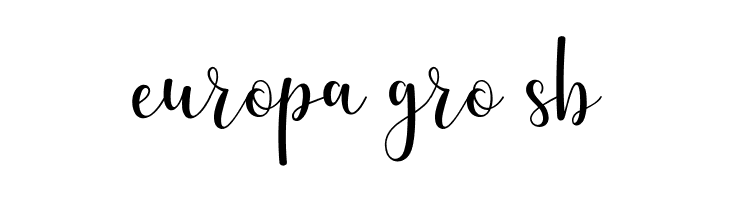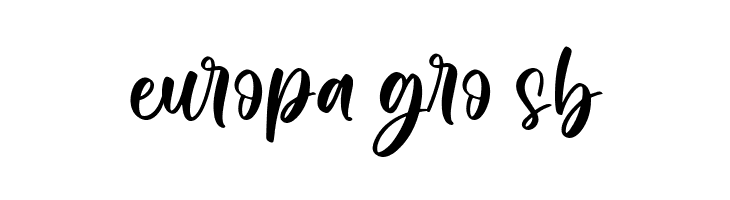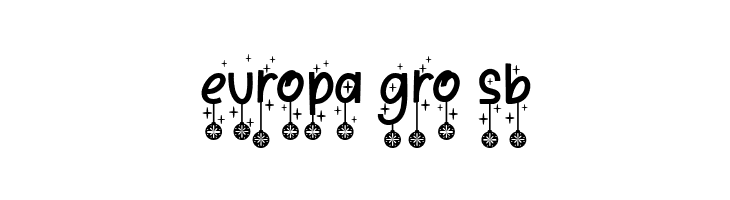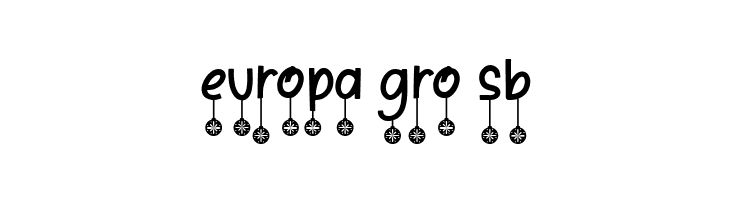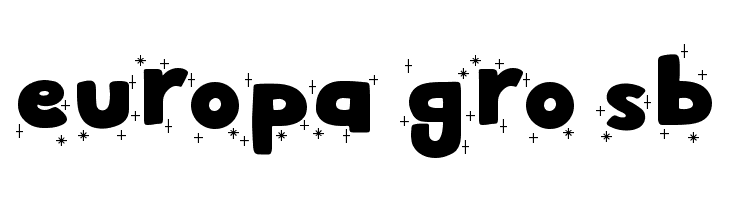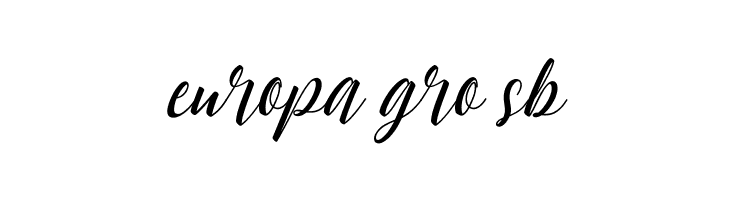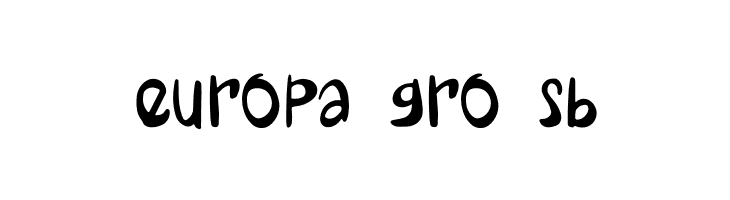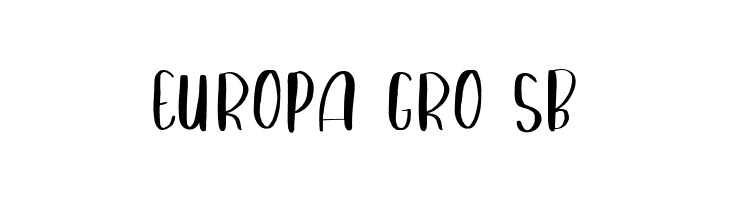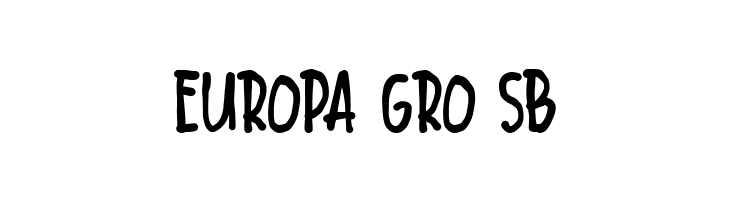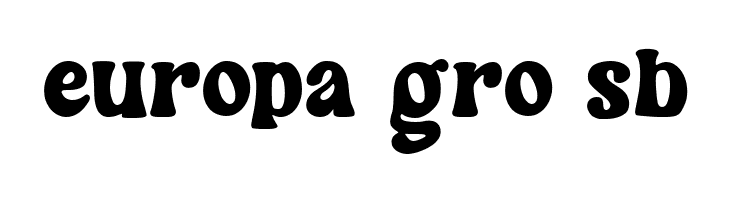
A playful and elegant script font with a modern twist.
A lively, expressive script font with bold, cursive strokes and playful loops.
A festive, decorative font with ornamented characters perfect for holiday themes.
A whimsical, decorative font with festive hanging ornaments on each character.
A bold, playful font with star-like sparkles, perfect for festive and whimsical designs.
A relaxed and elegant script font with flowing, cursive letterforms.
A playful, hand-drawn font with a whimsical and informal style.
A playful, handwritten-style font with bold, rounded strokes and a dynamic appearance.
A bold, handwritten font with a playful and casual style.
A bold, playful font with thick, rounded strokes and a whimsical style.